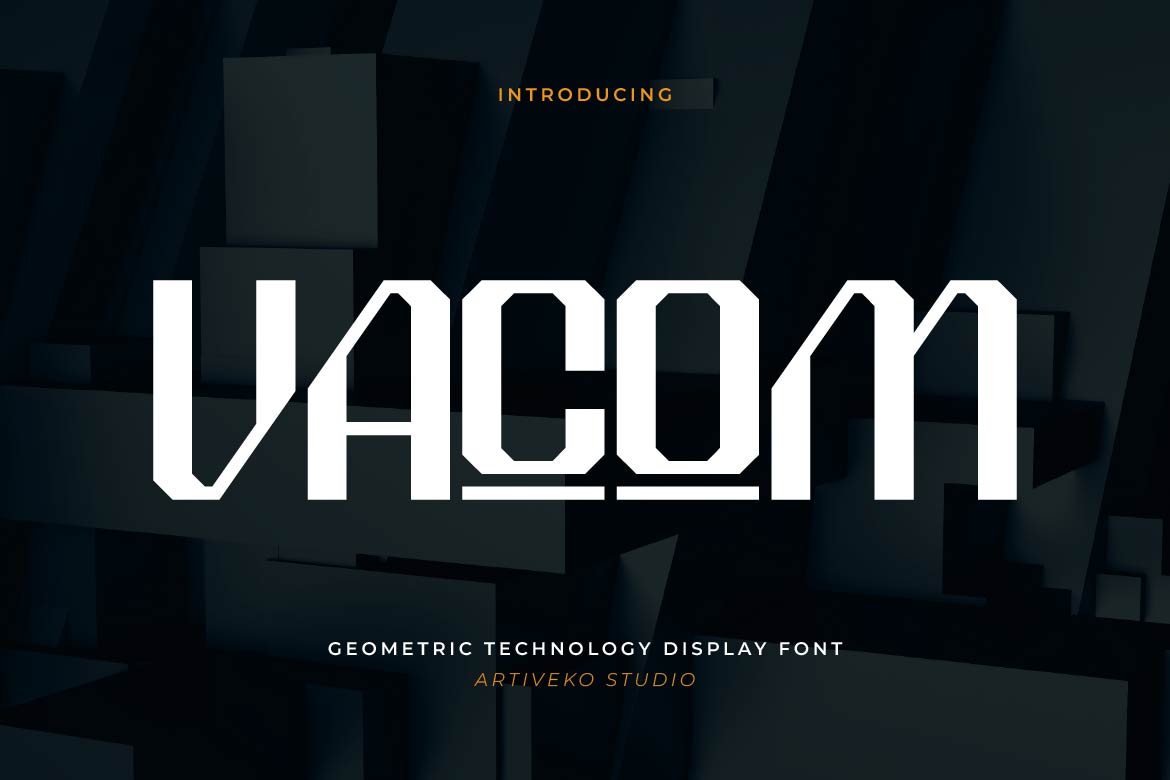
Vacom – Geometric Technology Display Font for Digital Innovation
Vacom is a geometric technology display font engineered for modern innovation and futuristic branding. Designed with clean geometric construction, sharp angles, and balanced proportions, Vacom delivers a bold visual identity that reflects precision, intelligence, and forward-thinking design.
Perfect for technology startups, AI companies, SaaS platforms, fintech brands, gaming projects, UI/UX interfaces, mobile apps, websites, dashboards, and digital products, Vacom combines exceptional readability with a strong futuristic aesthetic. Its modern geometry makes it an excellent choice for impactful logos, headlines, product launches, and technology-driven visual identities.
Whether you’re building the next disruptive startup, creating a cyber-inspired brand, or designing cutting-edge digital experiences, Vacom provides the confidence, clarity, and innovation your typography deserves.
Vacom isn’t just a font—it’s a geometric display typeface designed for the future of technology.